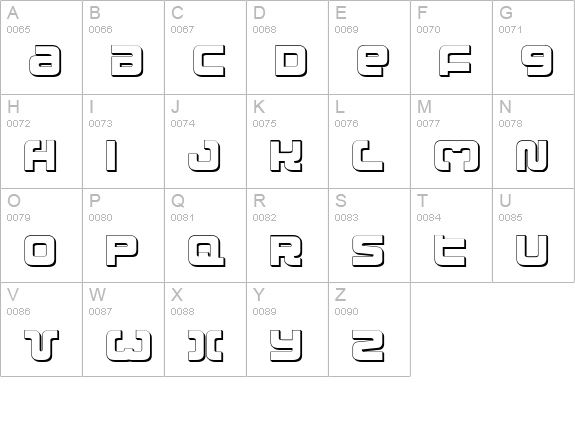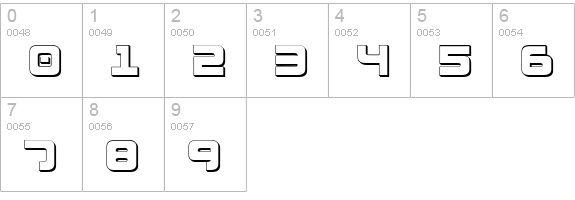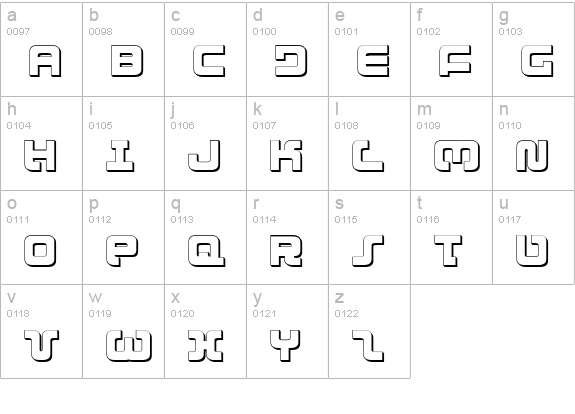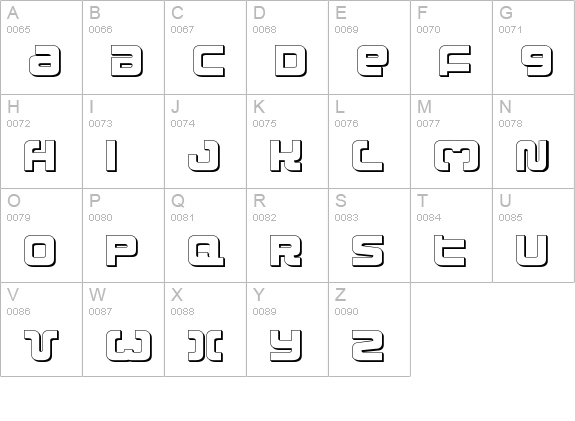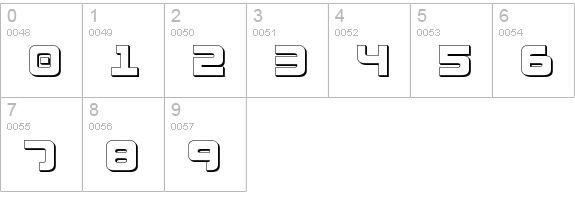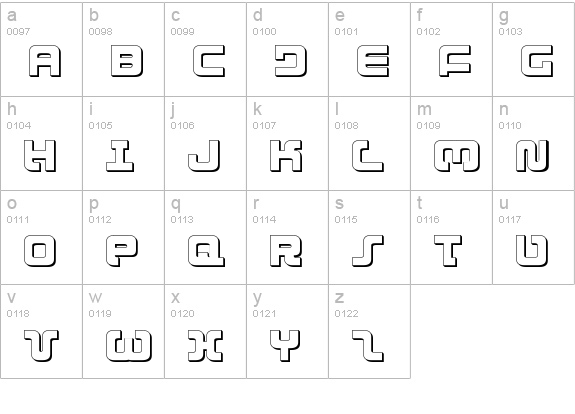
Introducing Exedore 3D font - a striking and dynamic typeface ready to elevate your designs to the next level! With its bold 3D effect and modern aesthetic, Exedore is perfect for making a statement on posters, logos, and branding materials. This unique font exudes a sense of depth and sophistication, making it ideal for projects that demand attention and creativity. What's even better is that Exedore 3D font is available for free download at FontsMarket.com! Now you can access this premium font without any cost, allowing you to add a touch of flair to your projects without breaking the bank. Don't miss out on the opportunity to enhance your designs with the eye-catching Exedore 3D font - download it for free today and let your creativity soar!